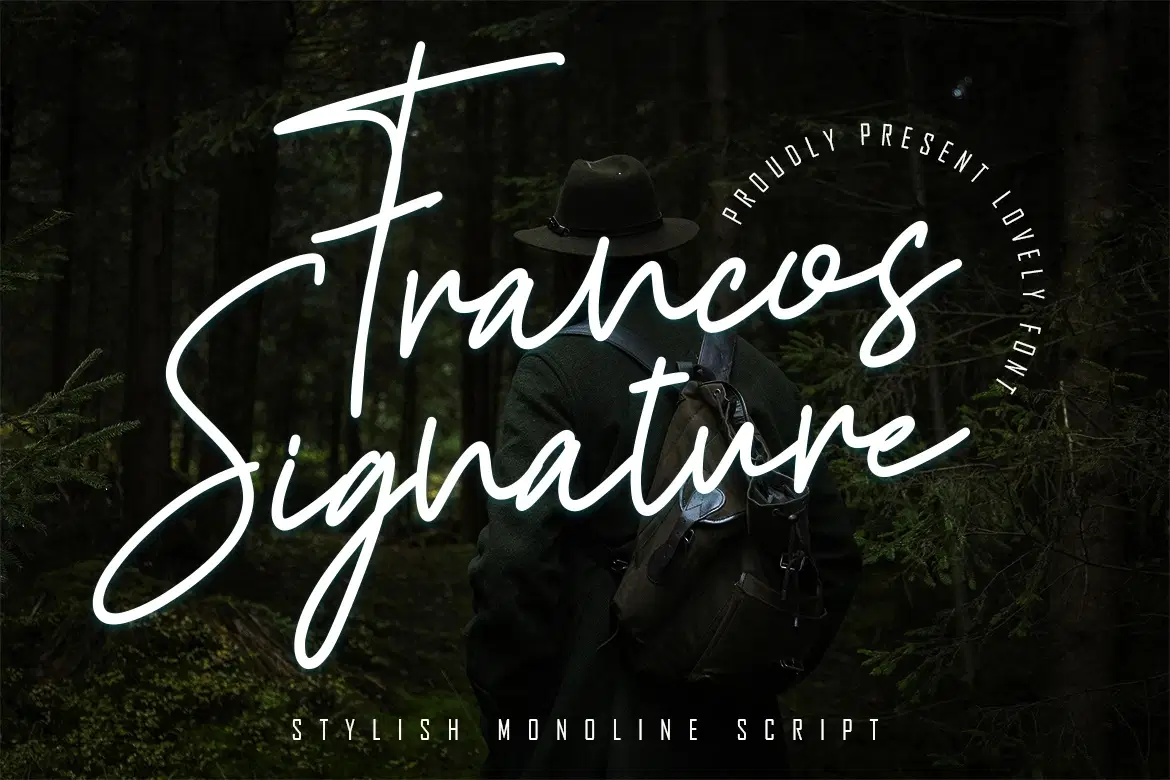
Francos Signature is a stylish monoline script font with a natural, handwritten feel. Designed to be elegant yet bold, this typeface is perfect for branding, logos, signatures, posters, social media graphics, and creative projects that need a modern and personal touch. Its smooth strokes and flowing curves create a timeless look that works beautifully in both minimal and expressive designs.